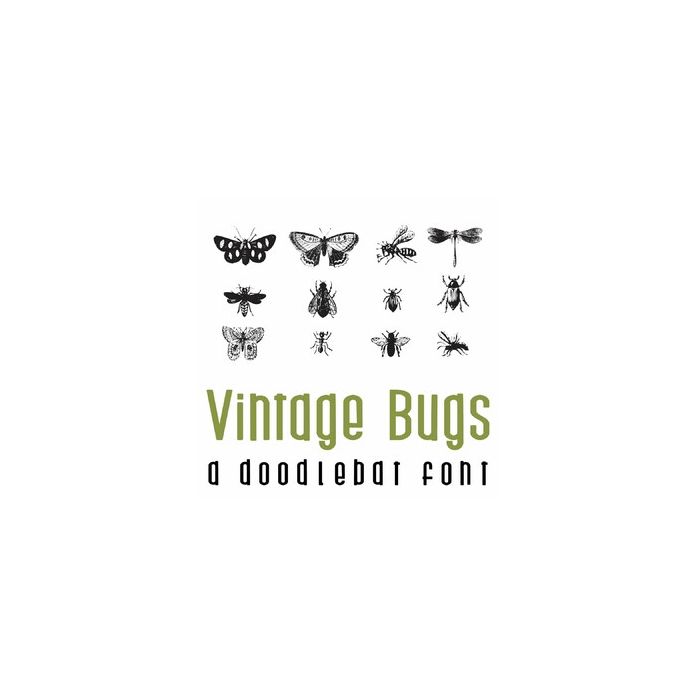
Vintage Bugs Doodlebat Font
This fun doodlebat font features 26 vintage style insects. Perfect for cards, gifts, decor, crafts, scrap book pages, planner stickers and more!